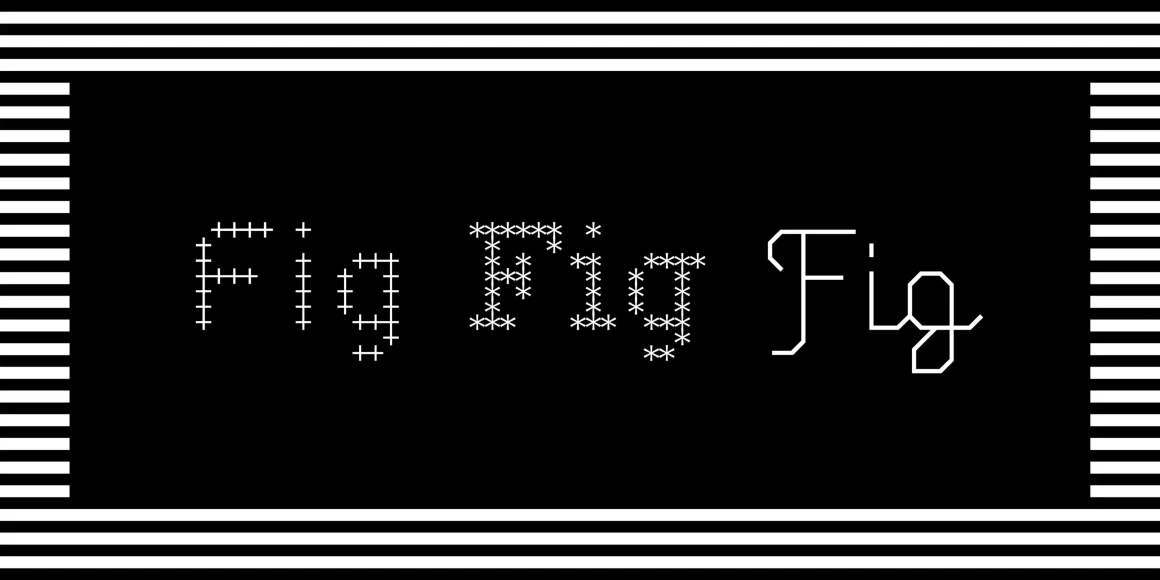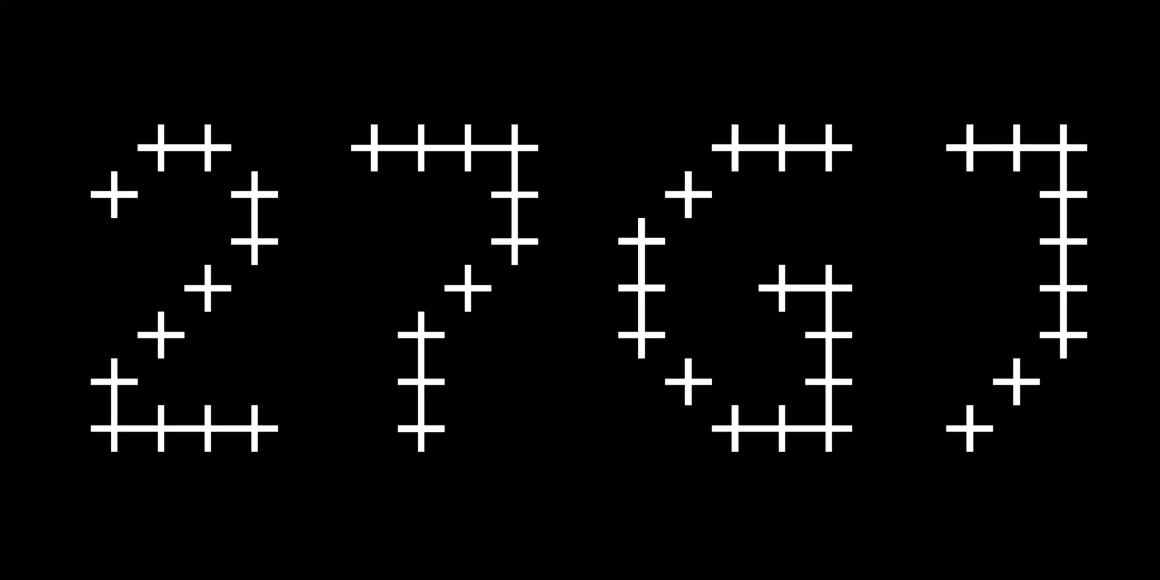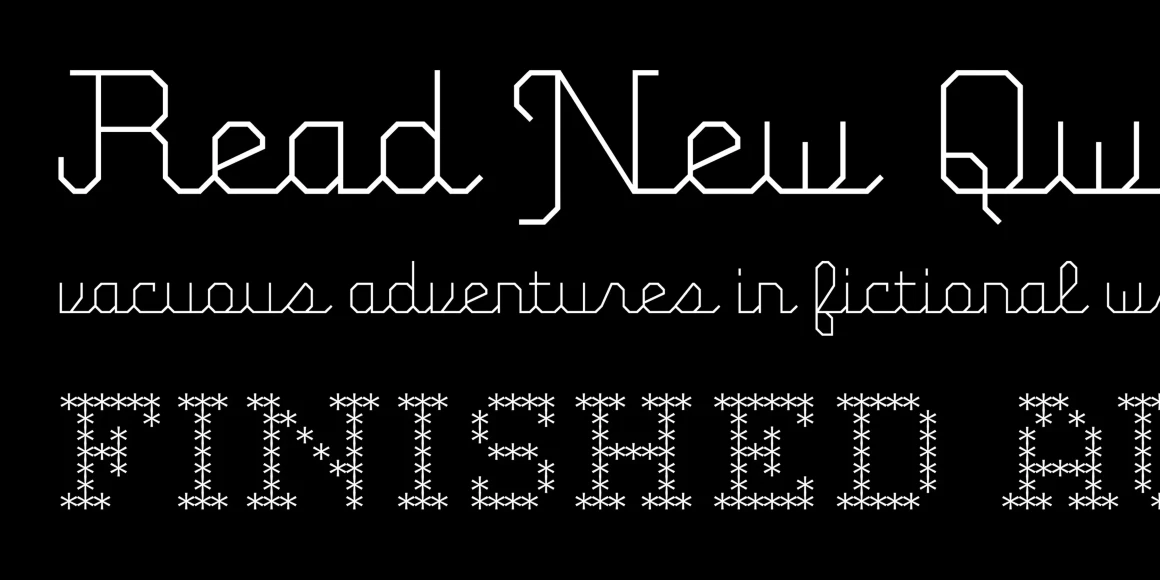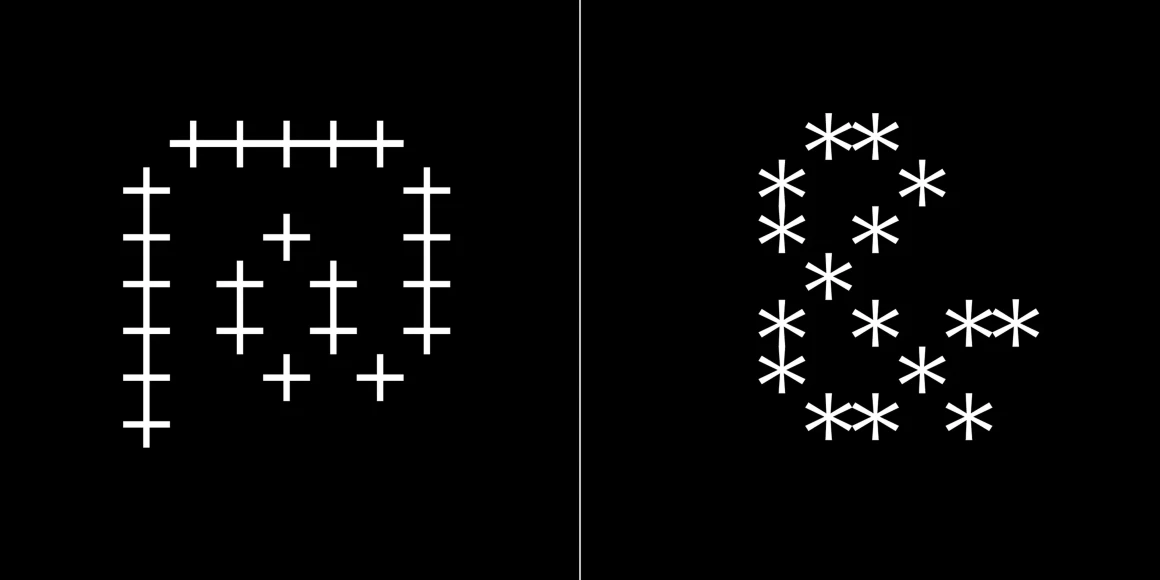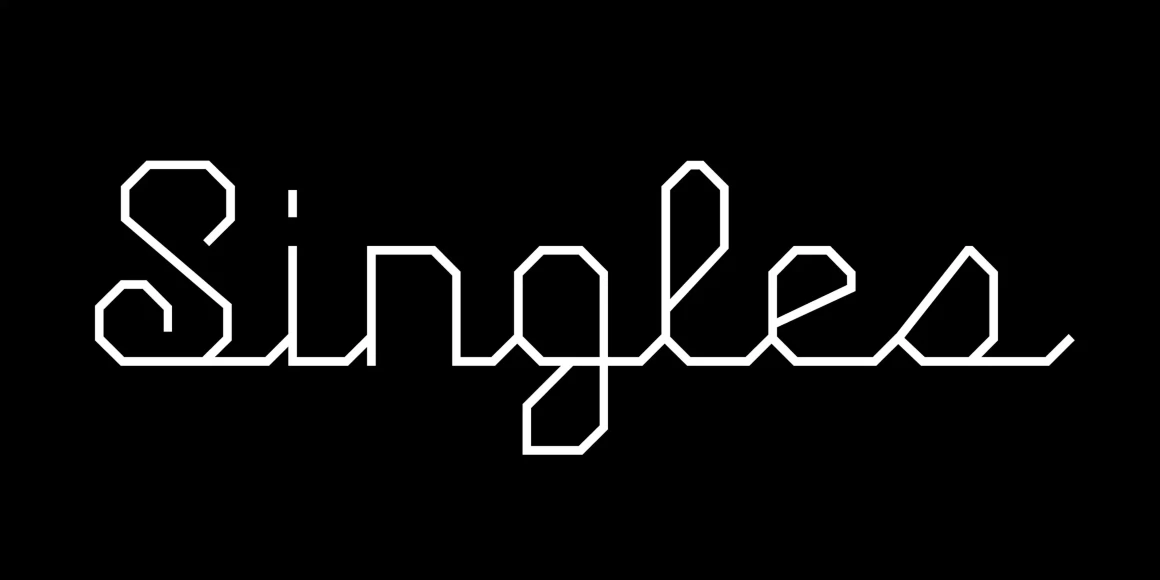
FIG is a trio of typefaces made in the spirit of early email and ASCII art. Named for the collaboration of Frank Sheeran, Ian Chai and Glenn Chappell that produced the FIGlet program, FIG Sans and Serif follow FIGlet’s reductionist construction principal literally: they are made from a single element. FIG Sans uses only the + symbol while FIG Serif uses the * symbol to construct each character. FIG Script follows a less rigid structure, arriving at something of an upright script, pairing primitive geometry and swooping ascenders/descenders. Both FIG Sans and Serif have old style figures.